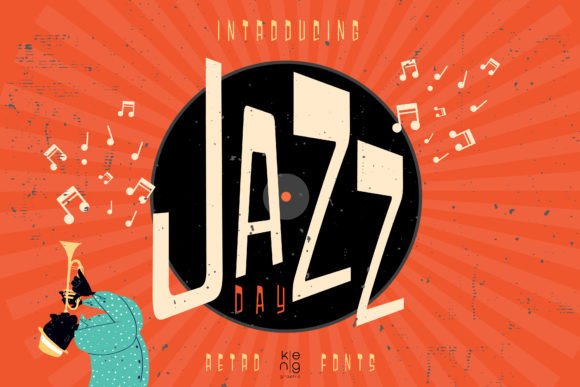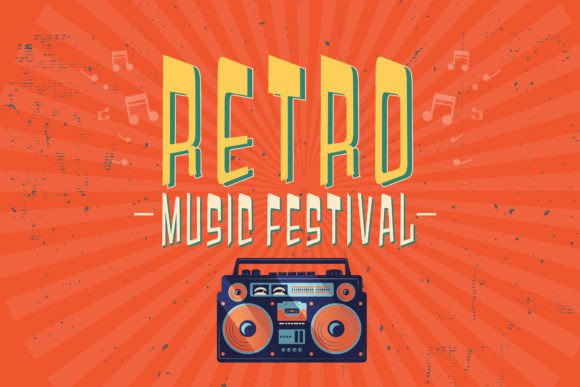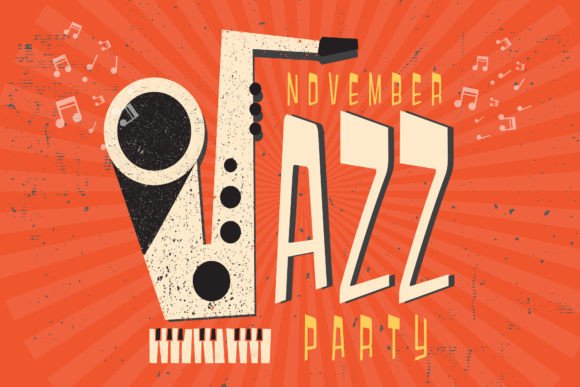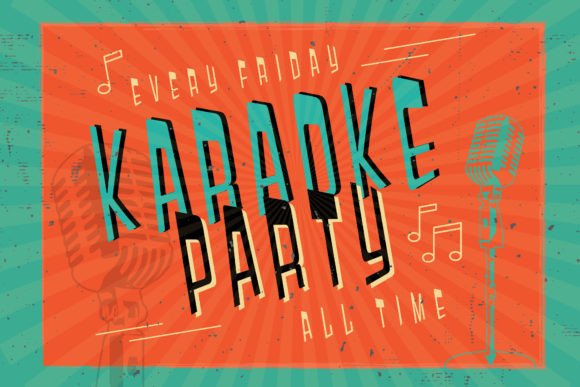
Jazz Day Font
About the Jazz Day Font
Welcome to the world of Jazz Day Font, a typeface that will inspire your next great project. Jazz Day is a comic-style retro display font with a great punch. Everything written in this font will be instantly recognizable and will attract attention. It will work great for comic book style, online games, cards, love shirts, posters, movie titles, eye-catching social media posts, or anything that requires youthfulness and courage.
Jazz Day’s bold, playful energy makes it ideal for headlines, posters, and branding projects targeting a young, vibrant audience. It excels in short, impactful text where its retro charm can shine. However, its low x-height and unique letterforms make it unsuitable for body copy or extended reading. Avoid using it in UI contexts or situations requiring high readability.
Pairing Jazz Day with a clean sans-serif like Open Sans for body text creates a strong visual contrast and balanced design. For a more retro feel, consider pairing it with a geometric sans-serif such as Futura, or for a touch of elegance, a classic serif like Garamond could work well.
The font’s overall personality is best described as energetic and retro-modern, reflecting a fun, slightly rebellious spirit. Brands focused on entertainment, youth culture, or vintage-inspired products will find Jazz Day a particularly strong asset.